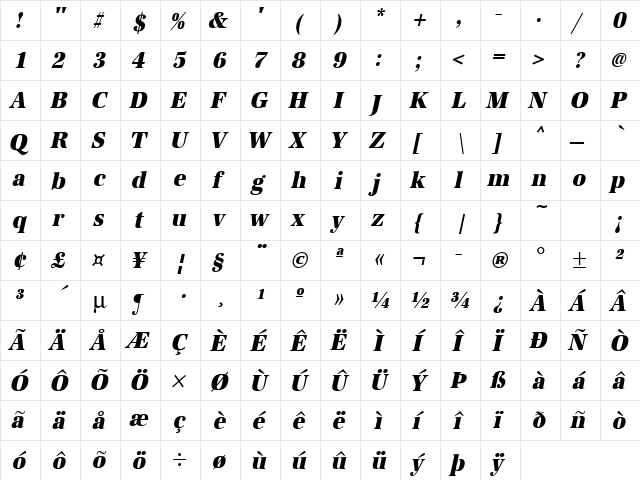
URWAntiquaTExtBolExtNar Oblique
Design Context for URWAntiquaTExtBolExtNar Typeface
URWAntiquaTExtBolExtNar is a composed and adaptable typeface that performs quietly and consistently across a wide range of design contexts. The dynamic lean of this cut emphasises speed and emphasis in any layout.
Pro Tip: Try URWAntiquaTExtBolExtNar for annotation and caption copy alongside an upright companion — the contrast in angle creates a dynamic but ordered typographic system.